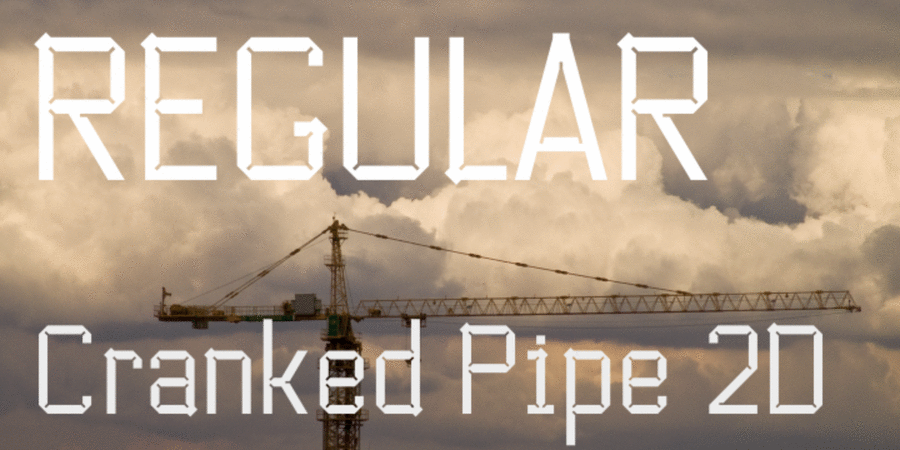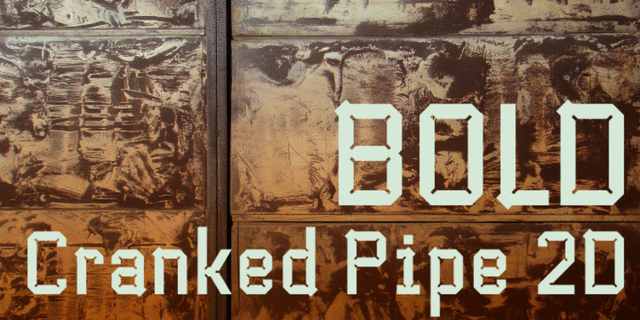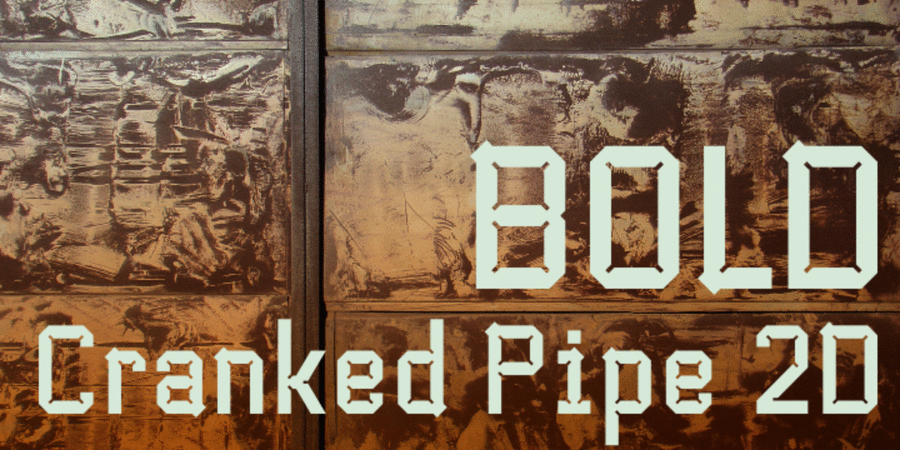
Cranked Pipe 2D (2 fonts)
About Cranked Pipe 2DTypeface Cranked Pipe has Industrial motifs and simple modular geometric shapes. It is best suited for large lettering. The font contains characters for all occasions, many ligatures, swashes, alternatives and other opentype-features. This typeface was designed by Lukyan Turetskiy in 2011.
Associations for font family Cranked Pipe 2DTypeface personality and character:
broken, distinctive, angular, splashy, game, solid, static, iron, steel, flat, stable, economical, dense, rectangular, industrial, technogenic, urbanistic, rude, domestic, urban, crisp, cutting, logical, artificial, machine, engineering, schematic, architectural, original, rough, sharp, electronic, Matrix, chopped, experimental, heavy, severe, port, dangerous, serious, convincing, reliable, manly, self-assured, strong, durable, brutal, military, army, soldierly, workman, motivating, rigid, impudent, extremal, tough, radical, incendiary, quick-tempered
game, machine tool, tool, constructor, scheme, engineer, equipment, industry, urban studies, city, device, sci-fi, science, gadget, IT specialist, IT, technology, space, architecture, design, robot, electronics, car, ammunition, firefighter, defense, ESM, oil, crane, Shooter, security, protection, brick, truck, war, army, weapons, mechanical engineering, mine, factory, metallurgy, building, building materials, packing, stock, port, box, power station, energy industry, repairs, depot, miner, helmet, uniform, railway carriage, tank, airsoft, construction, blockbuster, thriller, action, fitness equipment, automation, steel-maker, motor, engine, railway, workman, rap music, concert, computer game Typeface associated with age: